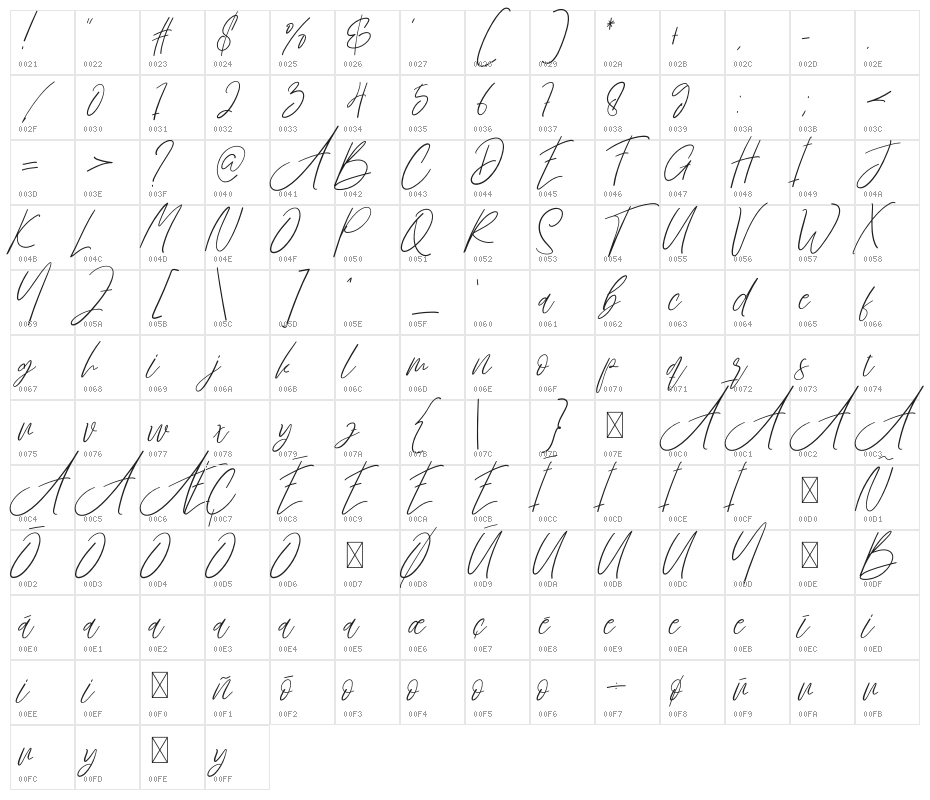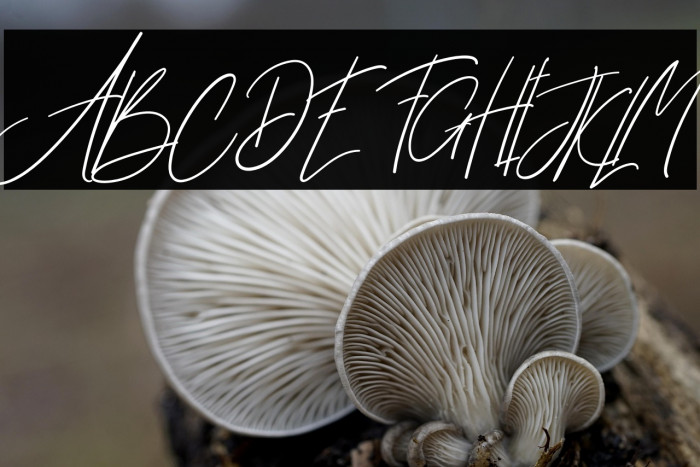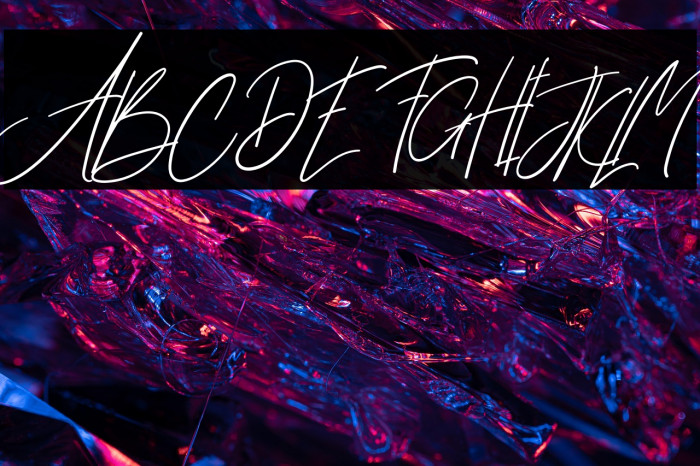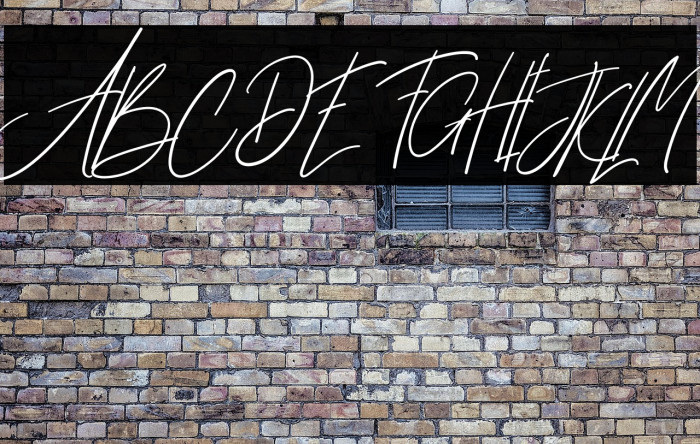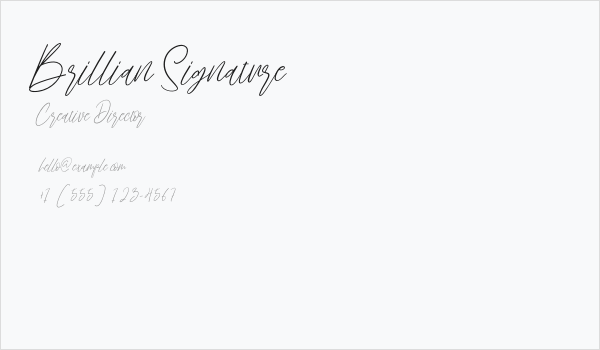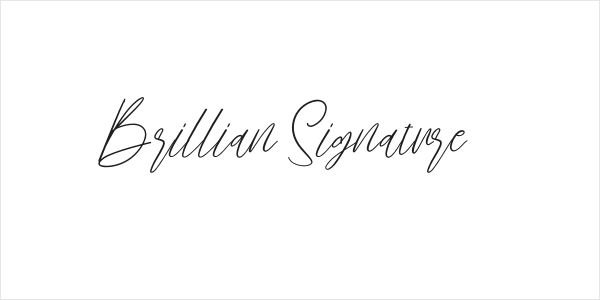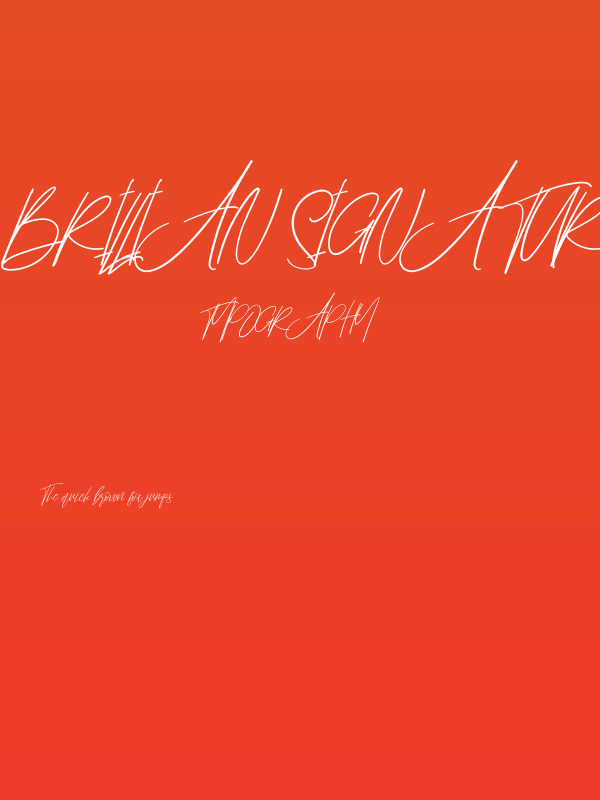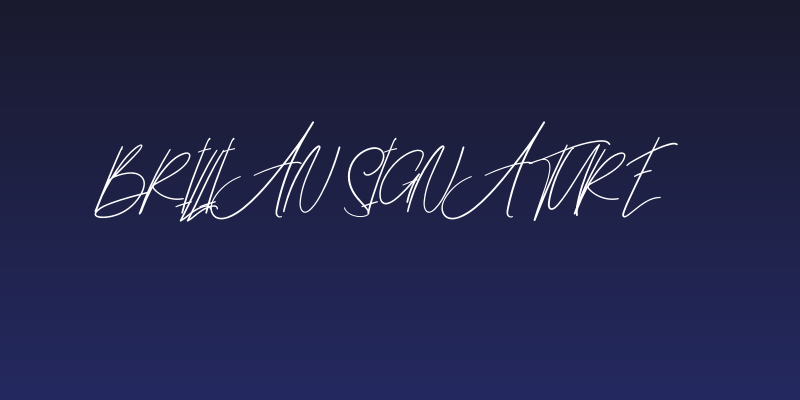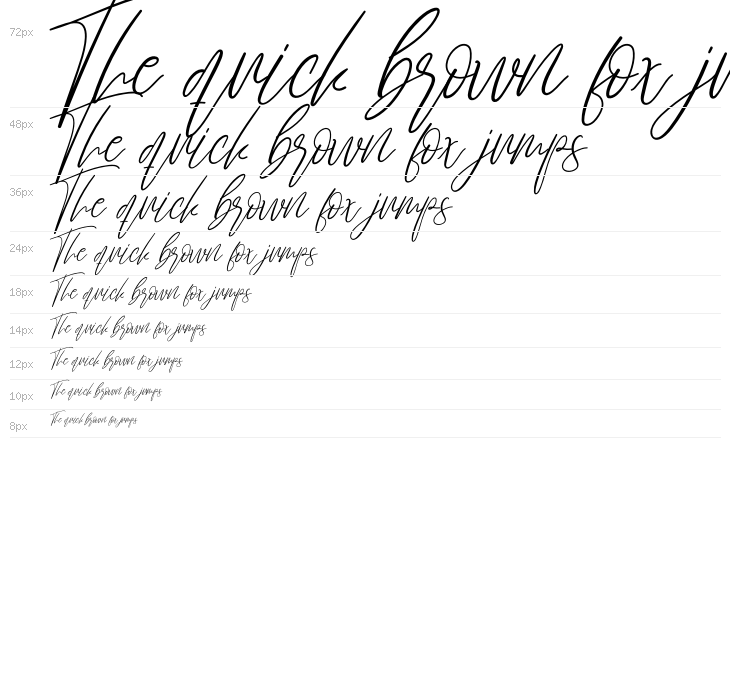
Brillian Signature Font
Brillian Signature Description
A flowing, elegant script font with a handwritten style, featuring smooth, connected letters and a natural, personal touch.
| Use Case | Logos, Invitations, Signatures |
| Proposed Projects | Invitations, personal branding, signatures. |